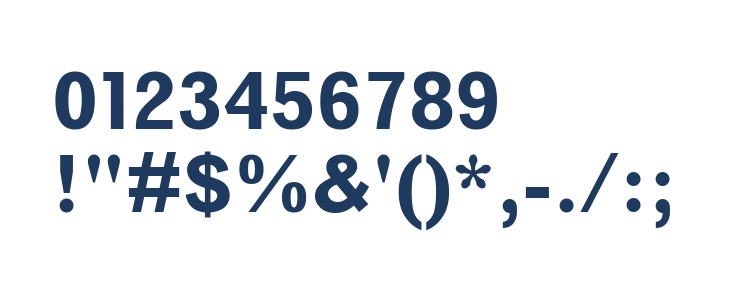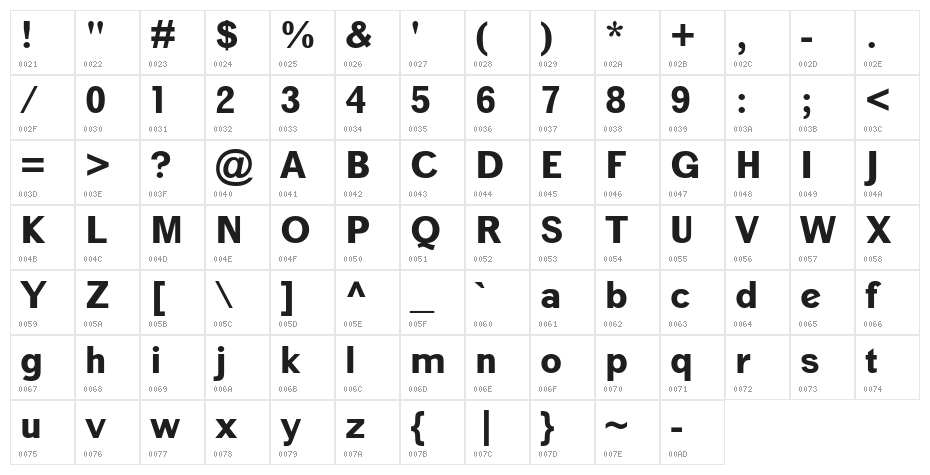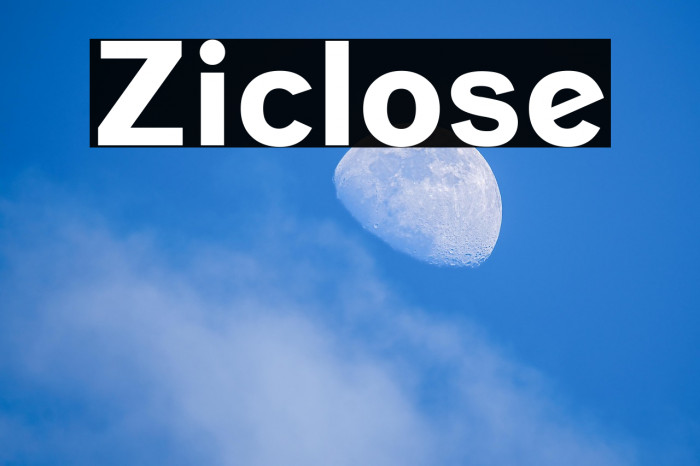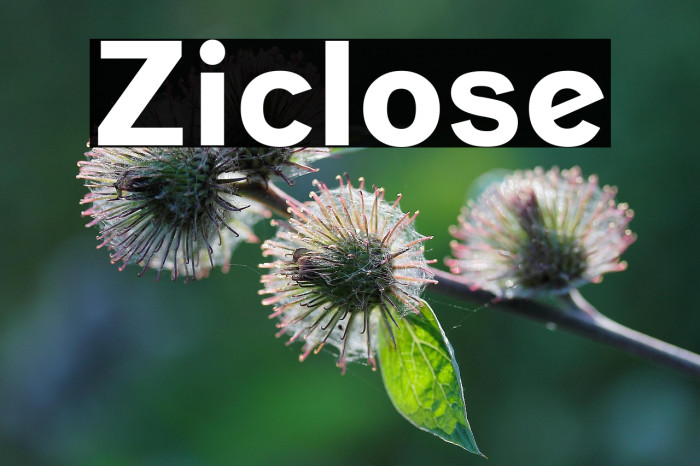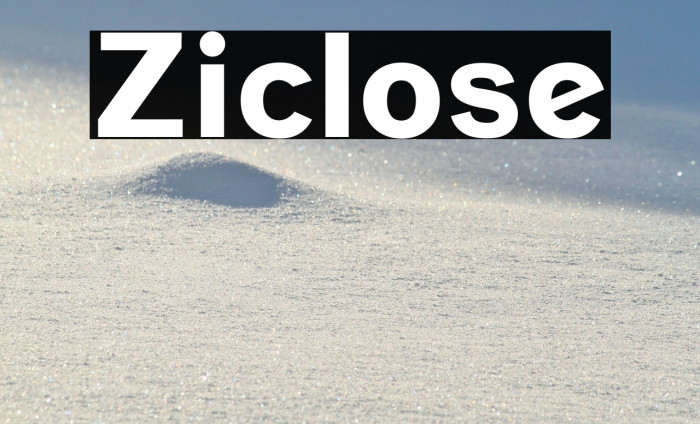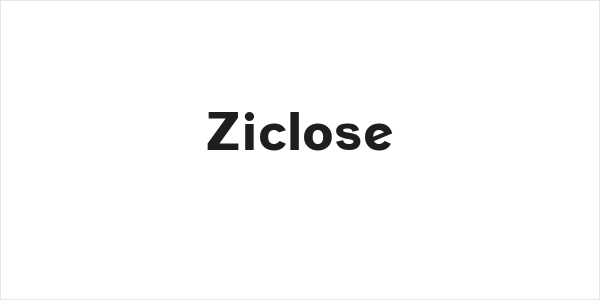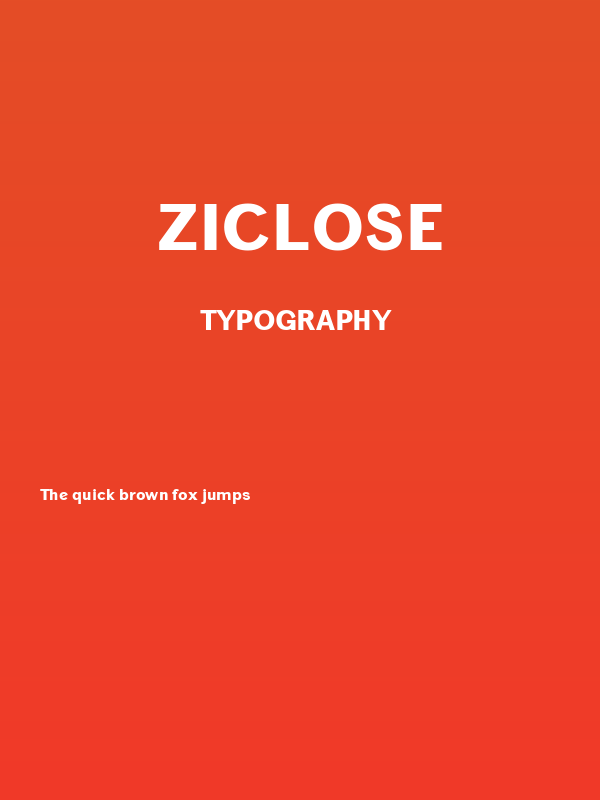
Ziclose Font
Ziclose Description
This font features a bold and robust design, characterized by its strong and uniform stroke weight. The letters are crafted with a modern sans-serif style, offering a clean and straightforward appearance. The uppercase and lowercase letters maintain a consistent height and width, ensuring readability and balance. The numerals are equally bold, matching the overall aesthetic of the alphabet. Special characters are included, providing versatility for various applications. The font's simplicity and clarity make it suitable for both digital and print media.
| Use Case | Headlines, Logos, Advertising |
| Proposed Projects | Ideal for branding, advertising, headlines, and digital content where clarity and impact are essential. |